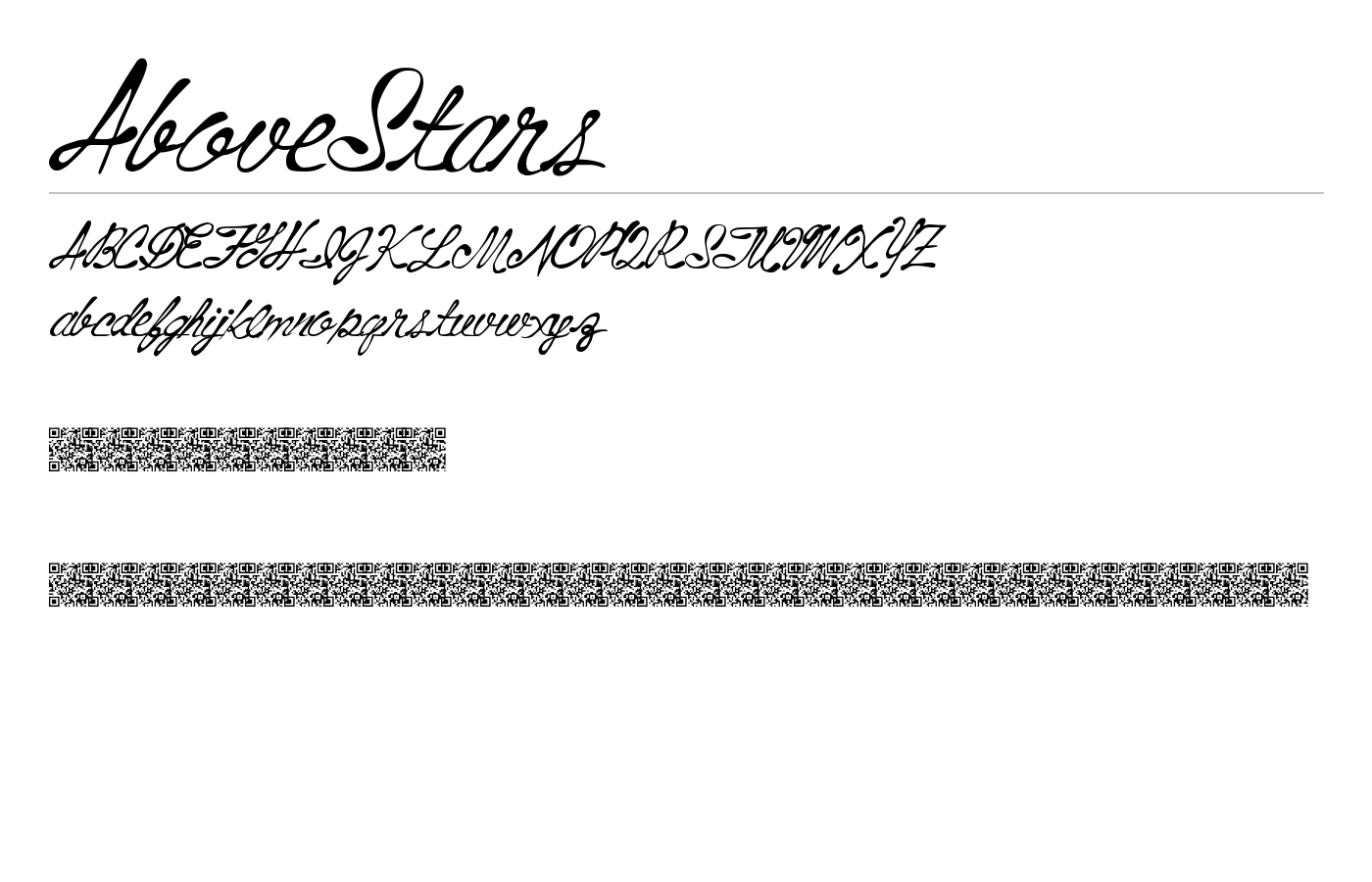
AboveStars is a stylish, script-style font with elegant, flowing letterforms that mimic natural handwriting. Its light weight and delicate strokes give it a graceful, sophisticated feel, making it ideal for invitations, branding, and any project seeking a personal, refined touch. This font works best in decorative uses where a touch of elegance and charm is desired.
AboveStars Font
About AboveStars Font